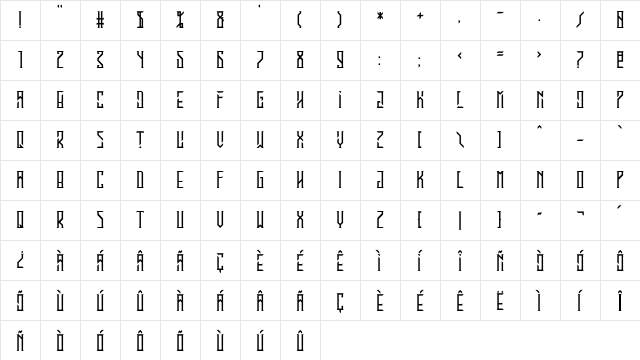
En Garde Regular
| Designer | Andros De Souza |
Design Context for En Garde Typeface
En Garde is a composed and adaptable typeface that performs quietly and consistently across a wide range of design contexts.